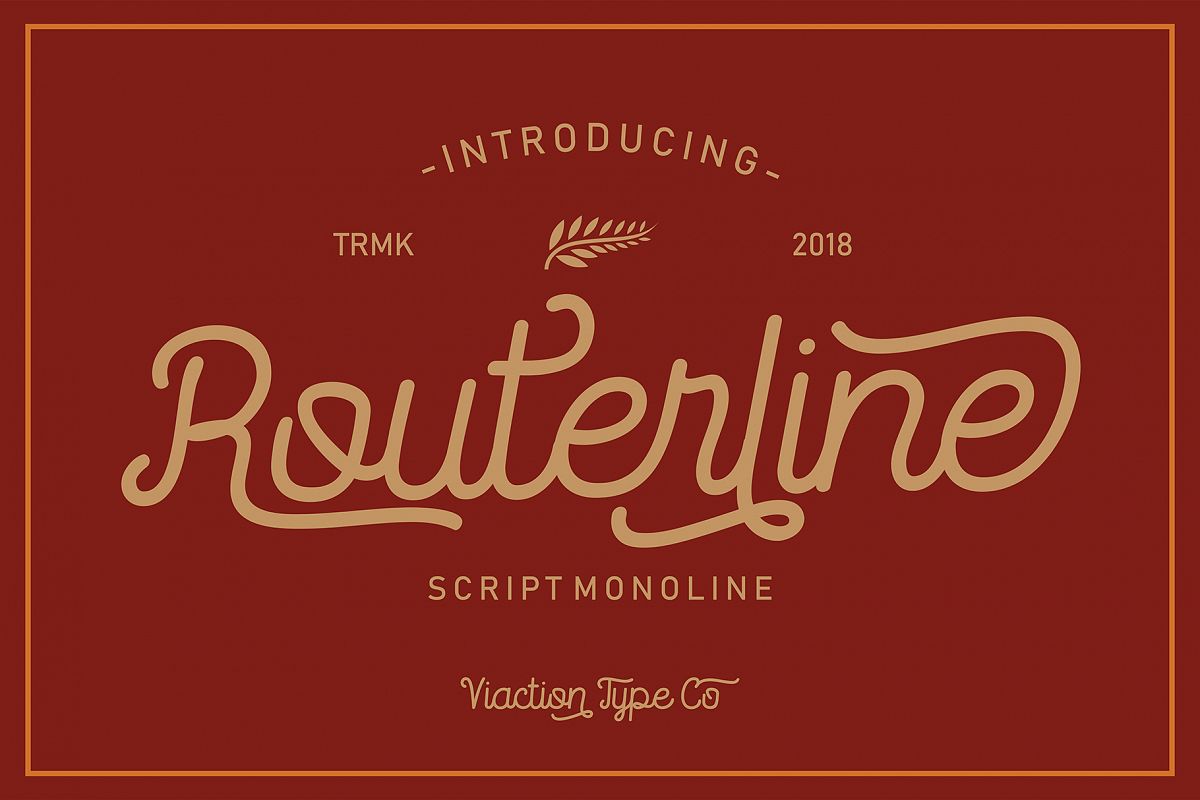
Routerline - 4 Style Font
Routerline
RouterlineBoldSlant
RouterlineBold
RouterlineSlant
Routerline is a script monoline with 4 styles, nice applied in various products. Complete with multilingual characters, ligature and alternate. It is suitable for quote, clothing design, vintage logo, label, poster, packaging design and other designs.